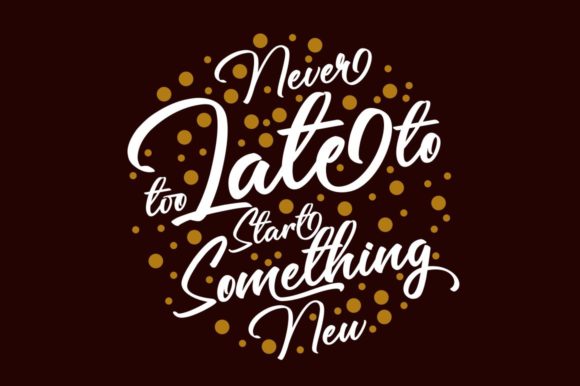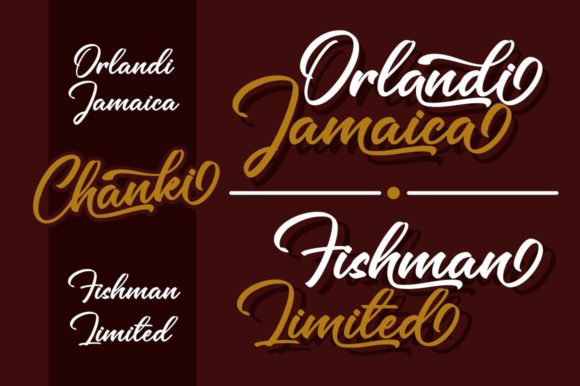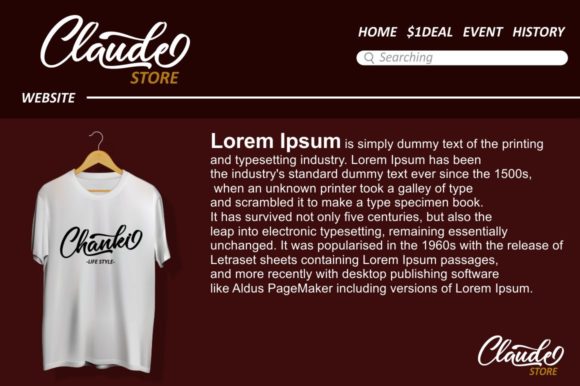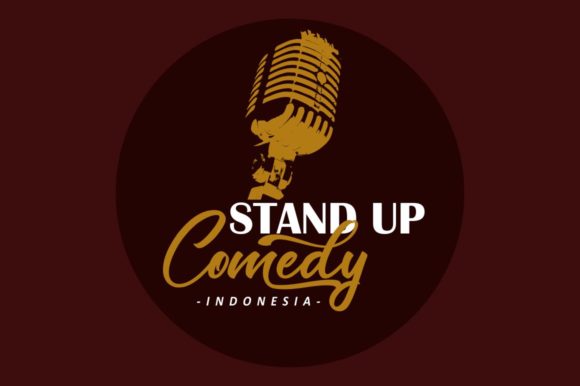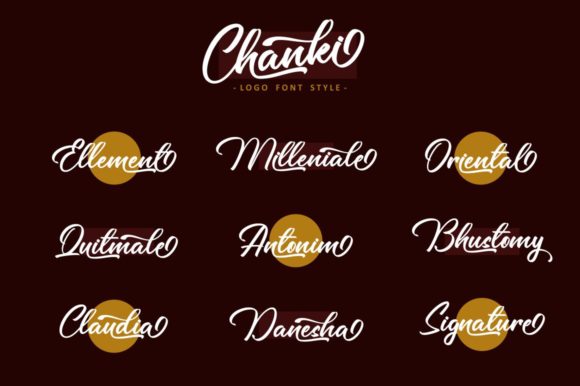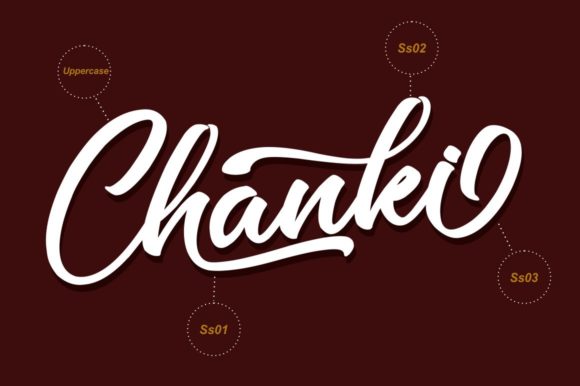
Introducing Chanki Font: The Ultimate Bold Handwritten Font for Designers
Are you tired of using the same old fonts in your designs? Look no further! Chanki Font is here to revolutionize your typography with its unique bold handwritten style. This carefully handcrafted font is designed to become a true favorite among designers, and for good reason. In this article, we’ll dive into the features and benefits of Chanki Font, and explore how it can elevate your designs to the next level.
What is Chanki Font?
Chanki Font is a bold handwritten font that exudes personality and style. Its carefully crafted letters are designed to make a statement, whether used as a standalone headline or paired with other fonts. With its unique blend of elegance and playfulness, Chanki Font is perfect for designers who want to add a touch of sophistication and whimsy to their work.
Key Features of Chanki Font
- Bold and Eye-Catching: Chanki Font is designed to grab attention and make a statement. Its bold strokes and carefully crafted letters ensure that your text stands out from the crowd.
- Handwritten with Love: Unlike generic fonts, Chanki Font is carefully handcrafted to give it a personal touch. Each letter is meticulously designed to create a unique and authentic feel.
- Versatile: Chanki Font is incredibly versatile and can be used in a variety of contexts, from busy backgrounds to standalone headlines.
- Easy to Read: Despite its bold style, Chanki Font is surprisingly easy to read, making it perfect for use in both digital and print designs.
Use Cases for Chanki Font
So, how can you use Chanki Font in your designs? The possibilities are endless! Here are a few ideas to get you started:
- Headlines and Titles: Use Chanki Font as a bold headline or title to grab attention and add personality to your designs.
- Branding and Logo Design: Create a unique and memorable brand identity with Chanki Font. Its bold and eye-catching style makes it perfect for logos, business cards, and other branding materials.
- Social Media Graphics: Add a touch of personality to your social media graphics with Chanki Font. Use it to create eye-catching posts, stories, and ads that stand out from the crowd.
- Invitations and Events: Make your invitations and event materials stand out with Chanki Font. Its elegant and playful style is perfect for weddings, parties, and other special occasions.
Benefits of Using Chanki Font
So, why should you choose Chanki Font for your designs? Here are just a few benefits of using this amazing font:
- Unique and Memorable: Chanki Font is unlike any other font out there. Its unique style ensures that your designs stand out and are remembered.
- Time-Saving: With Chanki Font, you can create stunning designs in no time. Its bold and eye-catching style eliminates the need for complex design elements.
- Easy to Use: Chanki Font is incredibly easy to use, even for designers who are new to typography. Its simple and intuitive design makes it easy to pair with other fonts and design elements.
In conclusion, Chanki Font is a game-changer for designers who want to add a touch of personality and style to their work. Its bold handwritten style, versatility, and ease of use make it the perfect choice for a wide range of design projects. Whether you’re a seasoned designer or just starting out, Chanki Font is sure to become a true favorite in your toolkit. So why wait? Download Chanki Font today and start creating stunning designs that stand out from the crowd!